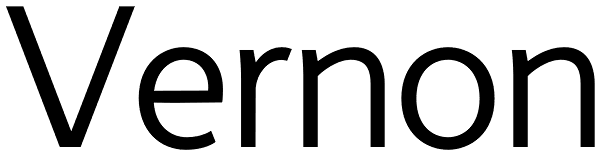
Vernon
Vernon’s inspiration came while researching and investigating a 'legible' typeface design for tangible purpose. The main characteristics of ‘Vernon’ can be seen in the slightly modulated strokes that reference the natural and friendly humanist...